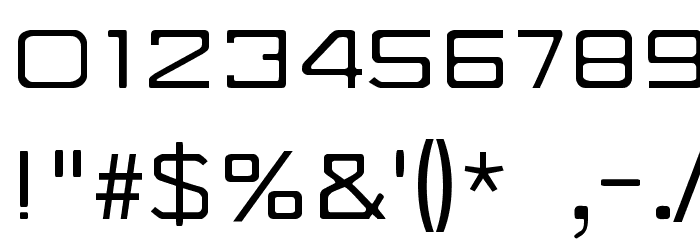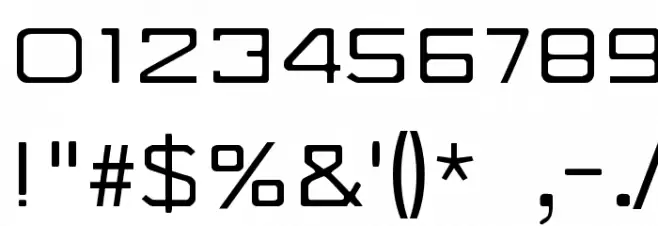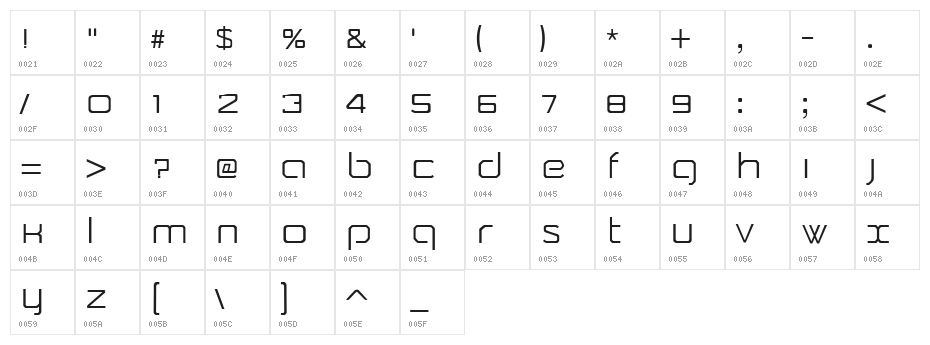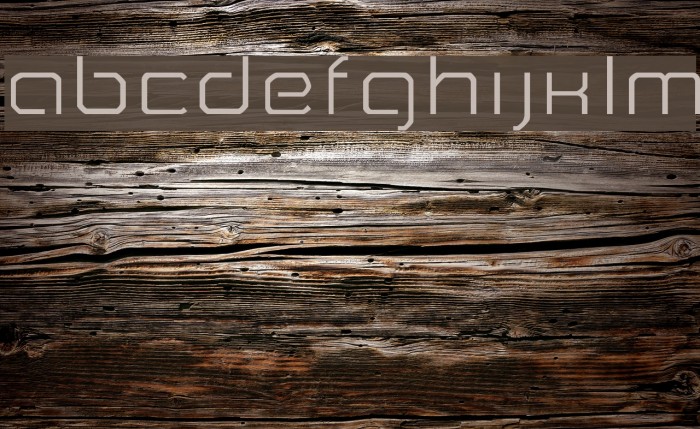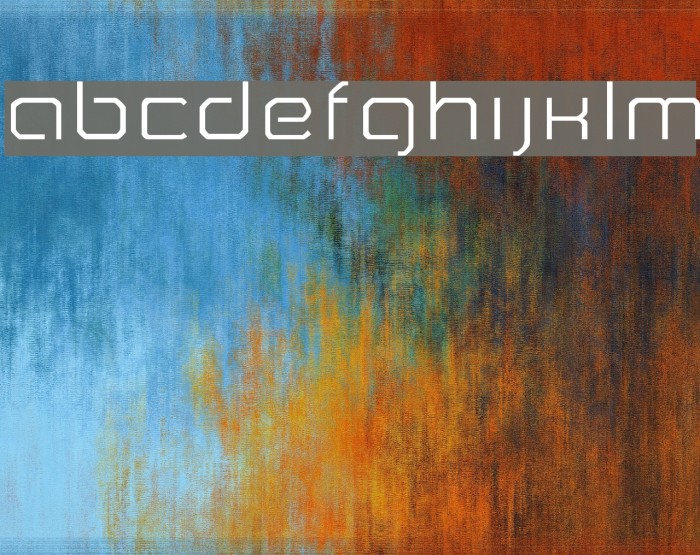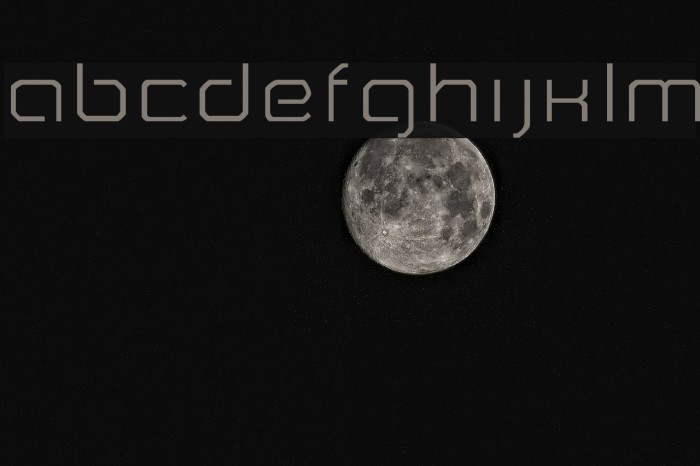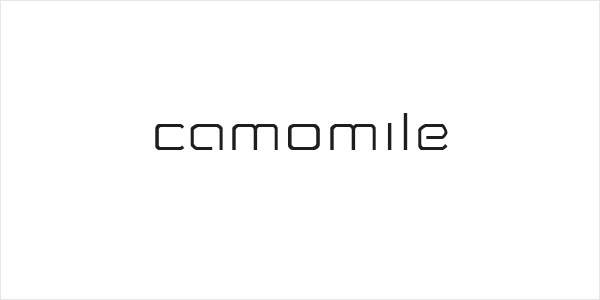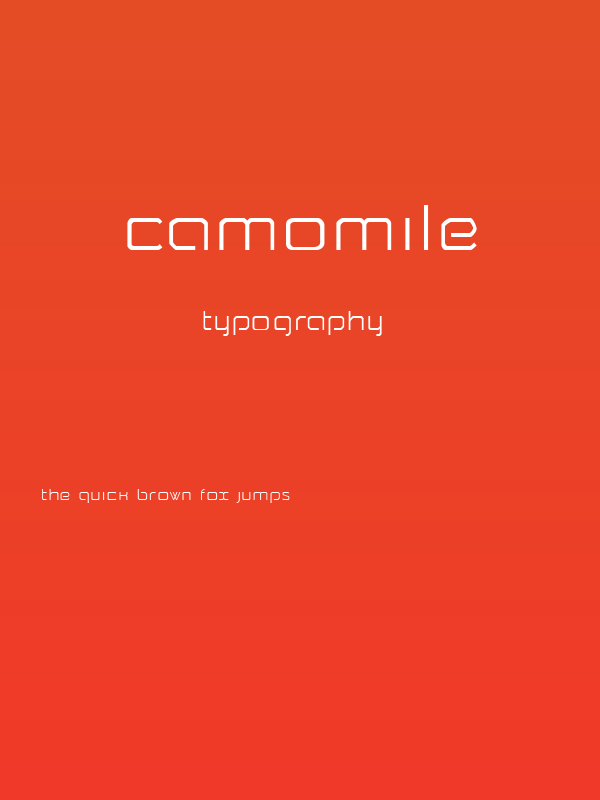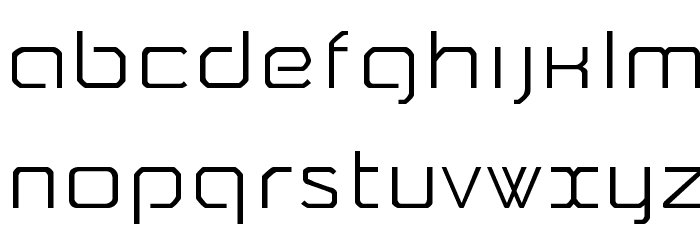
Camomile Font
Camomile Description
This font features a modern, geometric design with clean lines and a minimalistic aesthetic. The characters are constructed with a uniform stroke width, giving it a sleek and contemporary look. The rounded edges soften the overall appearance, making it approachable yet professional. The uppercase and lowercase letters maintain a consistent style, with a slight angularity that adds a unique touch. The numerals are clear and easy to read, while the special characters blend seamlessly with the rest of the typeface. This font is versatile, suitable for a variety of design projects.